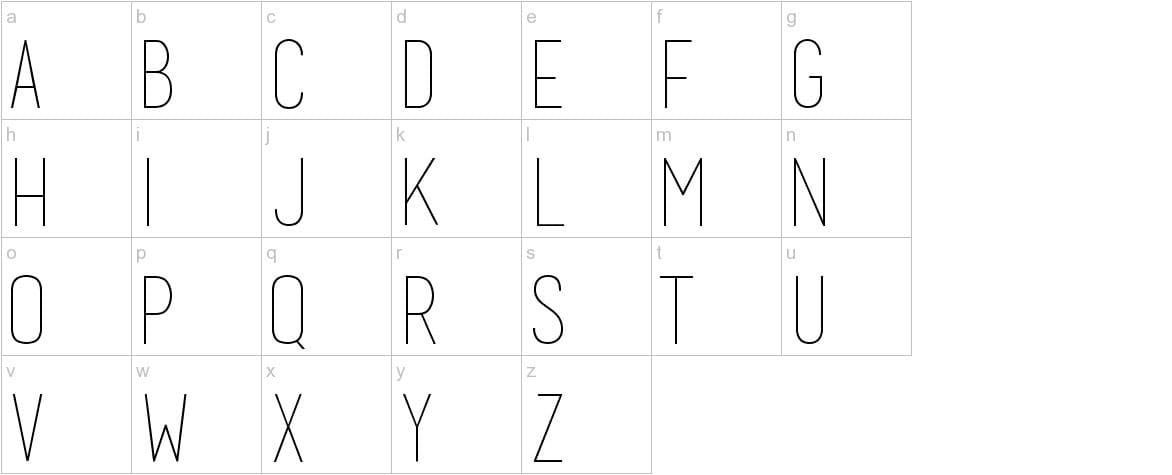
bristol
Explore the Stylish Bristol Font for Creative Projects
Bristol Font, crafted by renowned designer Alex Smith in 2022, embodies a contemporary mix of elegance and robustness. This typeface is highly suitable for branding, website headings, and a variety of creative design applications, enhancing the visual appeal of any project.
Key Features and Formats of Bristol Font
The Inspiration Behind Bristol Font
Bristol Font draws inspiration from modern urban landscapes, reflecting a balance between tradition and contemporary aesthetics. Alex Smith’s innovative design approach focuses on creating a typeface that is not only visually striking but also highly functional for various mediums.
Best Uses for Bristol Font in Design
Ideal for use in branding, web design, print materials, and advertising, Bristol Font captures attention while maintaining readability. Whether you’re crafting a sophisticated logo or a bold headline, this font stands out with its unique character and charm.